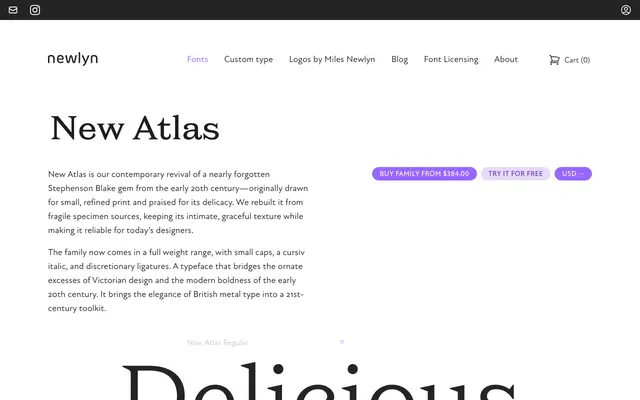
New Atlas
A contemporary revival of a Stephenson Blake text face from the early 20th century, rebuilt from fragile specimen sources and extended into a full weight range with small caps and a cursive italic.
Originally drawn for small, refined print and praised for its delicacy, the source material was rescued from Stephenson Blake's early 20th-century archive and rebuilt by Newlyn for reliable digital use. The family spans five weights from Regular to Black, each with a matching italic, and includes small caps and discretionary ligatures. It sits comfortably in editorial and book work where a British metal-type character is wanted without the grime of an uncleaned scan.
A revival of a Stephenson Blake metal type from the early 20th century, bridging Victorian ornamental tradition and early modernist restraint, with a cursive italic and refined texture characteristic of transitional serifs.